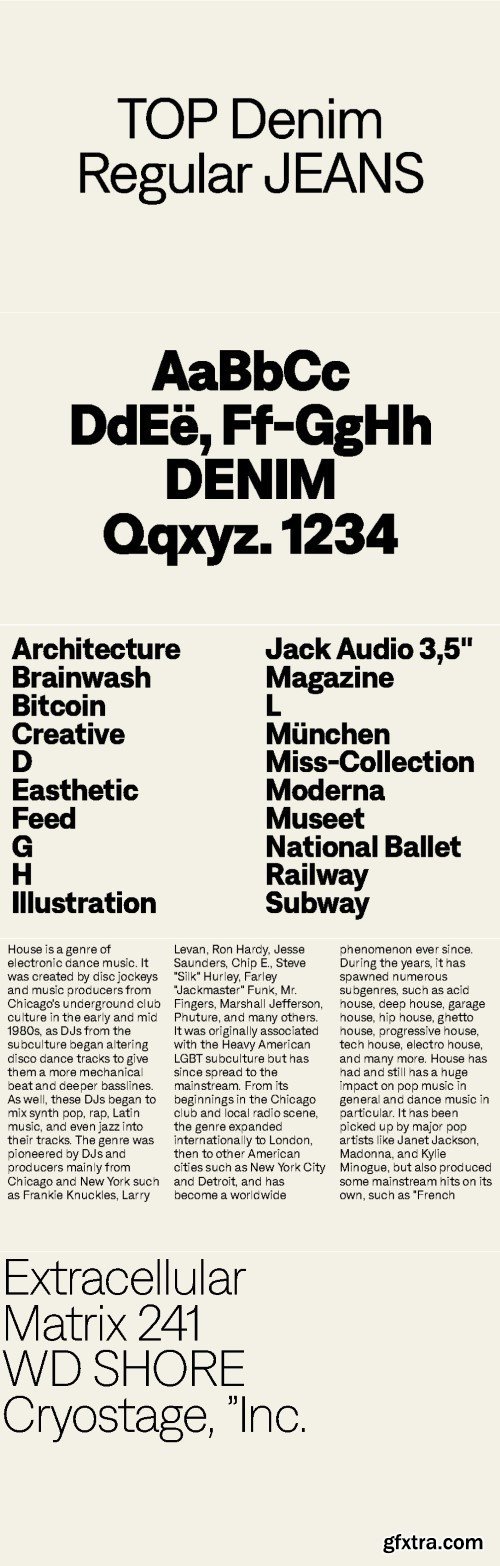
DP Denim Font Family
The sans-serif typeface “Denim” fits any situation. It’s great for smaller texts, but if you want to make a big splash, let it shine in large headlines! Moreover, thanks to the flattened overshoots, it sits perfectly on the line. These details make the typeface really special, which is supported by other features that bring a certain technical aspect while maintaining a humanistic feel. The typeface also includes graceful elements that can be revealed in larger sizes to highlight the originality of this masterpiece! Speaking of italics, they are designed in the golden number 11°, as in beer grades. 10° is good, but lacks flavour, and 12° is fine, but will get you drunk in no time.